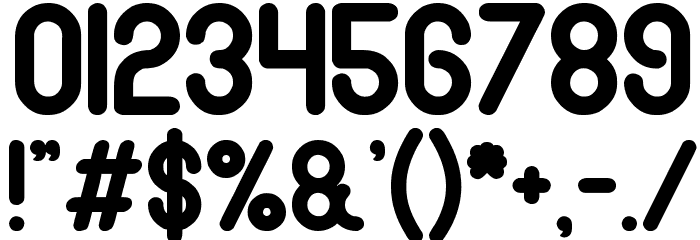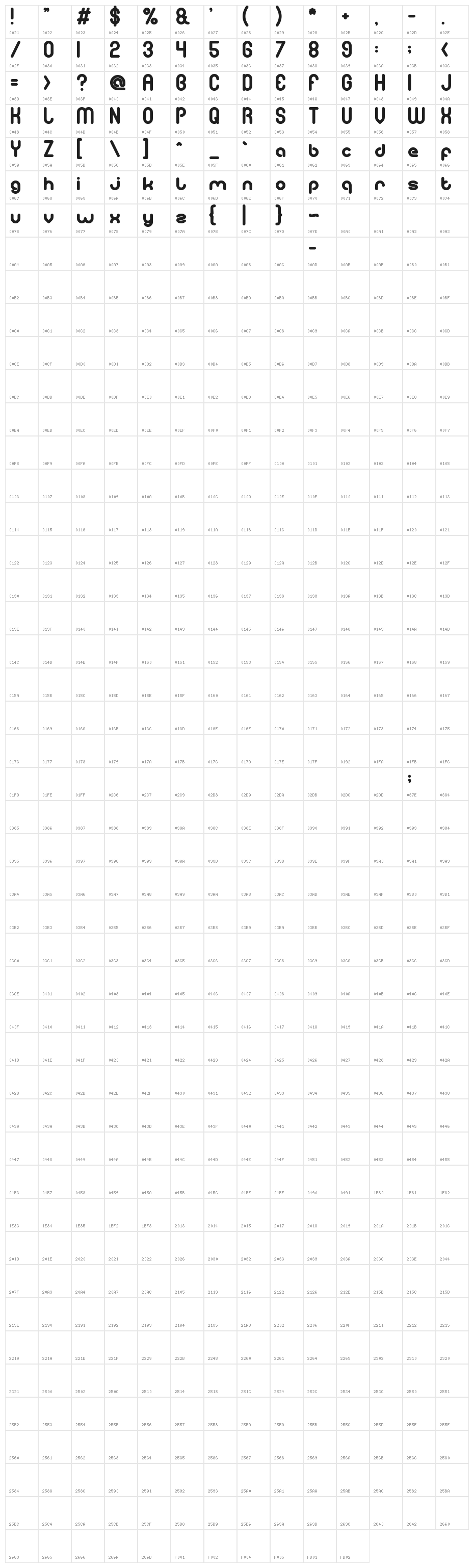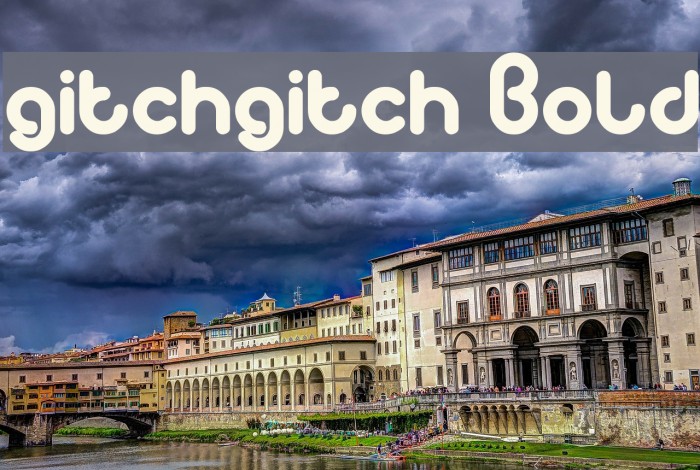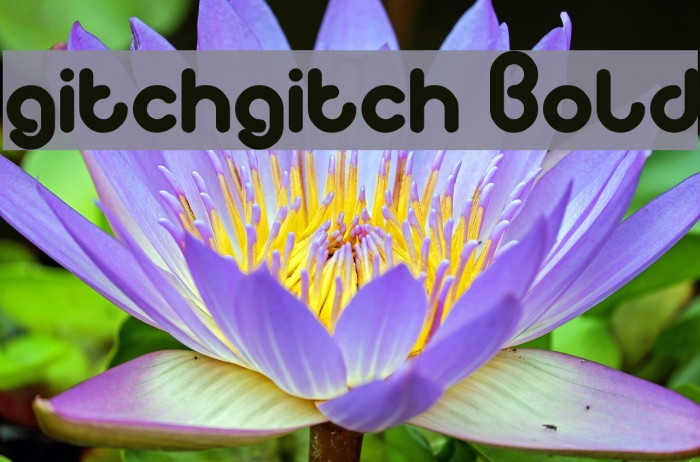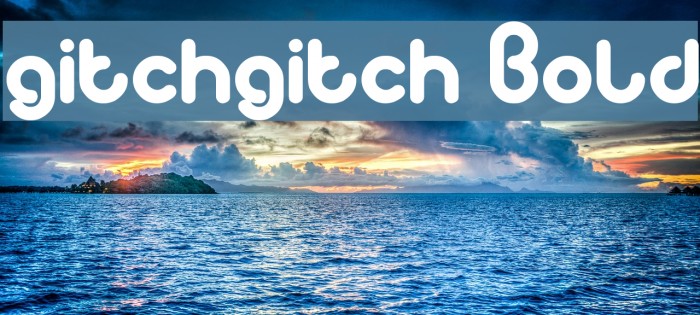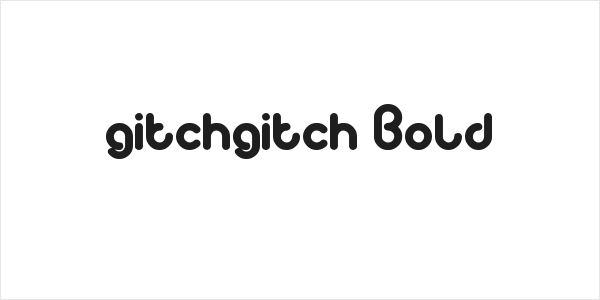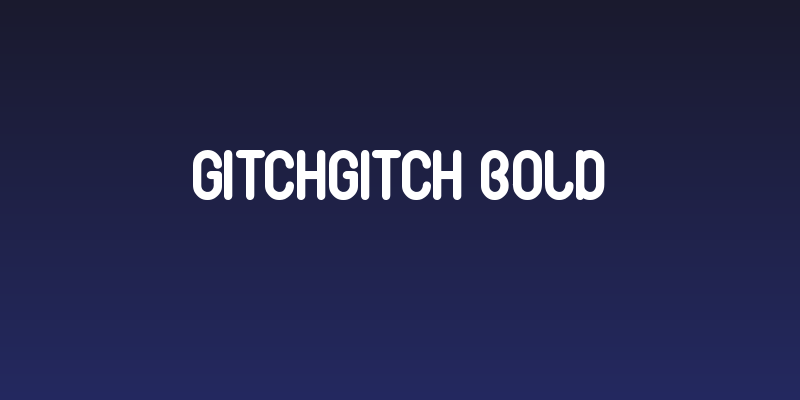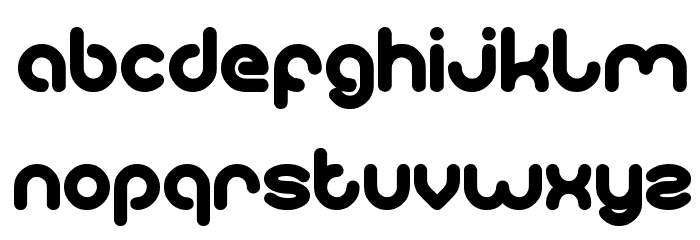
gitchgitch Bold Font
gitchgitch Bold Description
This font features a bold and rounded style with a playful and modern appearance. The characters are uniformly thick, giving it a strong presence. The rounded edges soften the overall look, making it approachable and friendly. The uppercase and lowercase letters maintain a consistent style, with a slight variation in the lowercase letters that adds a touch of uniqueness. The numerals are clear and easy to read, matching the boldness of the alphabet. Special characters are well-integrated, maintaining the same rounded and bold characteristics. This font is versatile, suitable for various design needs where a bold and modern touch is desired.